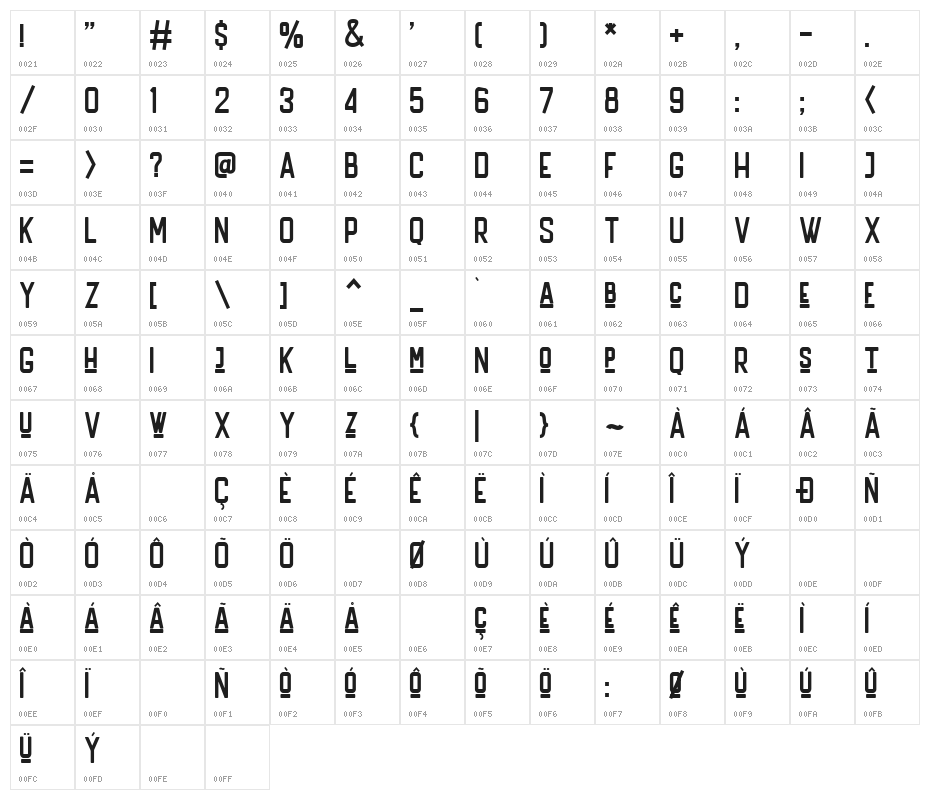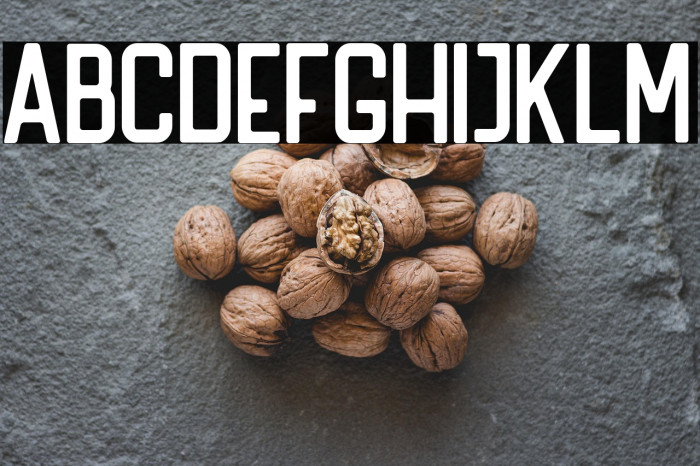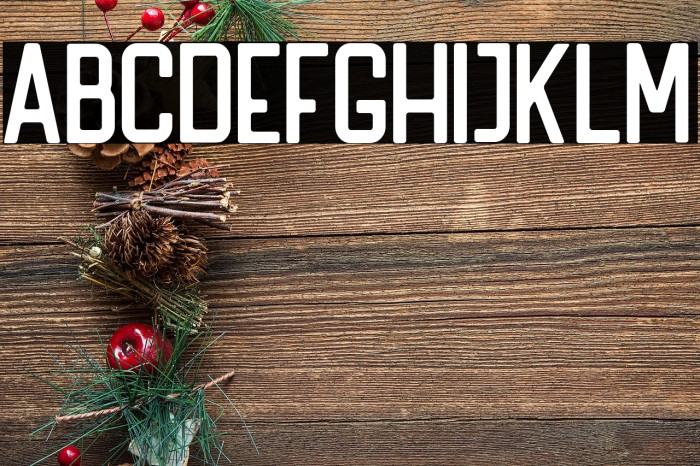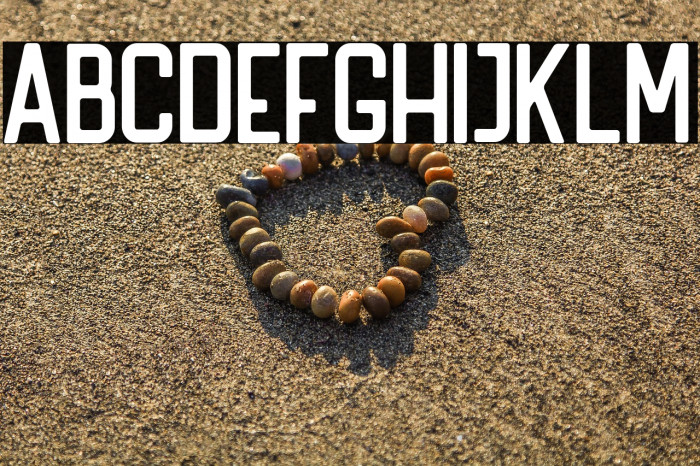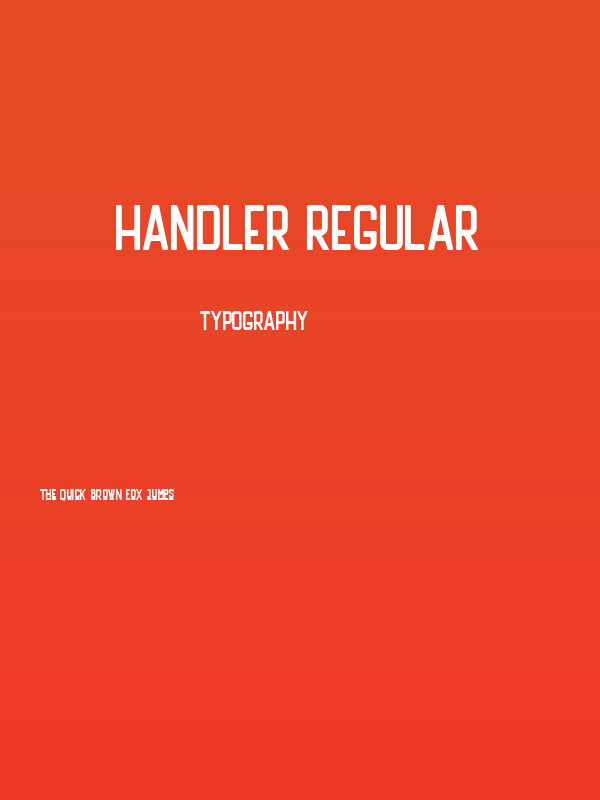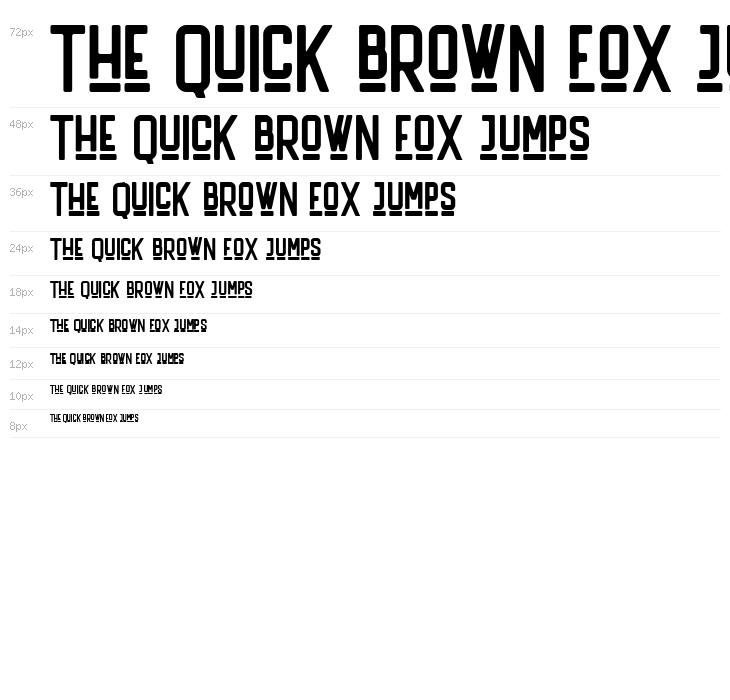
HANDLER Regular Font
HANDLER Regular Description
This font features a bold, geometric design with a modern aesthetic. The characters are constructed with consistent stroke widths, giving it a uniform appearance. The uppercase letters are particularly striking, with a strong presence and a slightly condensed form. The numerals and special characters maintain the same boldness and geometric style, ensuring cohesion across all elements. The font's clean lines and lack of serifs contribute to its contemporary feel, making it suitable for a variety of design applications.